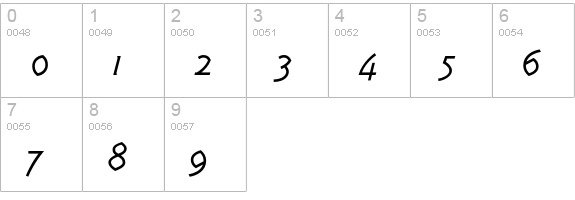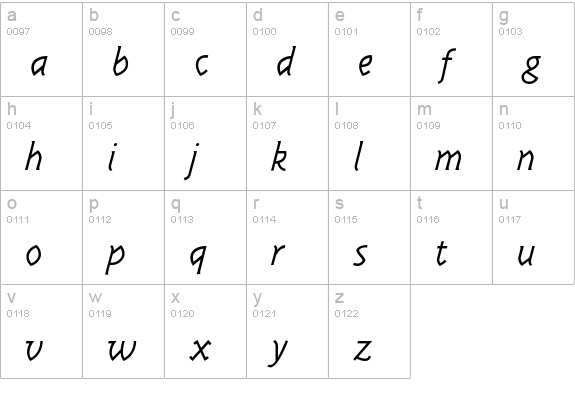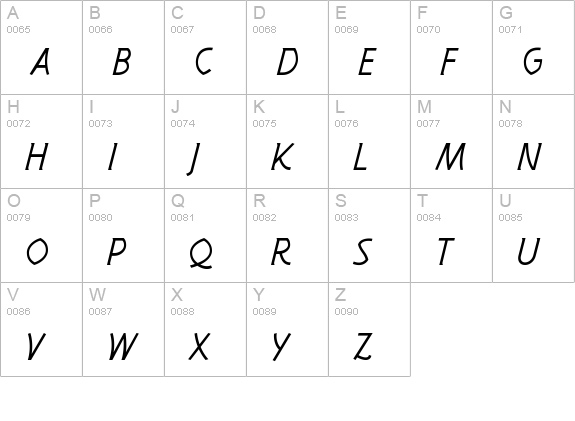
Karmen-LightItalic Font Details
Karmen-LightItalic is a stunningly elegant font that exudes a sense of grace and sophistication. Its delicate curves and subtly slanted letters make it the perfect choice for adding a touch of refined beauty to any design project. Whether you are creating wedding invitations, branding materials, or simply looking to elevate your typography game, Karmen-LightItalic is the ideal font to bring your vision to life. This font possesses a unique balance between strength and delicacy, making it versatile and suitable for a wide range of design styles. Its lowercase letters are particularly captivating, with their slightly elongated and gracefully flowing forms. The uppercase letters maintain the same sense of elegance, while adding a touch of boldness and authority. One of the most remarkable aspects of Karmen-LightItalic is that it is free for personal and commercial use. This means that you can download and use this font without any restrictions or limitations. It is freely available to download at FontsMarket.com, a trusted source for high-quality and professionally designed fonts. So whether you are a professional designer or an aspiring creative, Karmen-LightItalic is an invaluable addition to your font collection. Its beauty, versatility, and the fact that it is freely accessible make it a must-have for anyone looking to elevate their design projects to new heights. Download Karmen-LightItalic today and unlock the endless possibilities it offers for your creative endeavors.